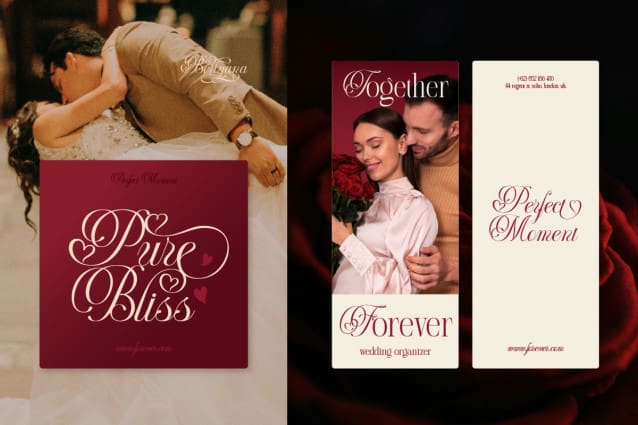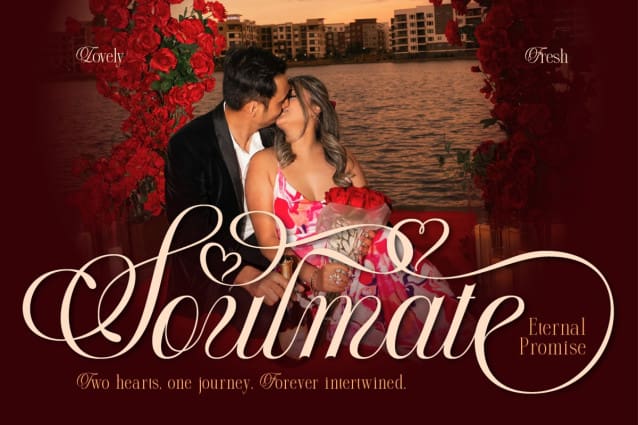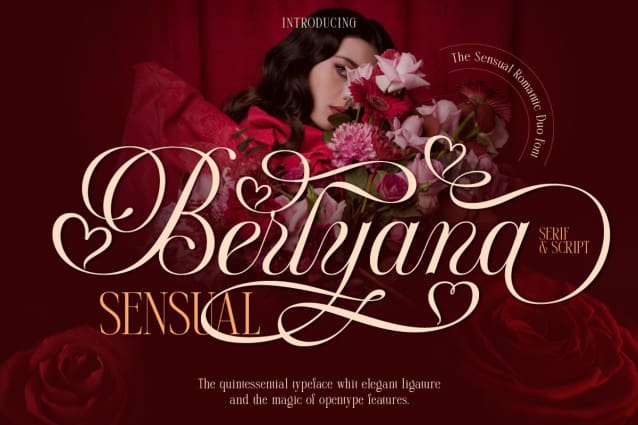
Berlyana Sensual Font Duo
Berlyana Sensual Font Duo, a whisper of romance and elegance from script and serif. This duo font combines the elegance of script with sense of love and the timeless classic serif with nostalgia touch. Include the alternates that stir sensuality, love, glamour and romance. With multilingual support (european basic support) makes this font ideal for global branding. Perfect for wedding invitation, heartfelt notes, valentine’s card, editorial design, branding, logo type and many more.